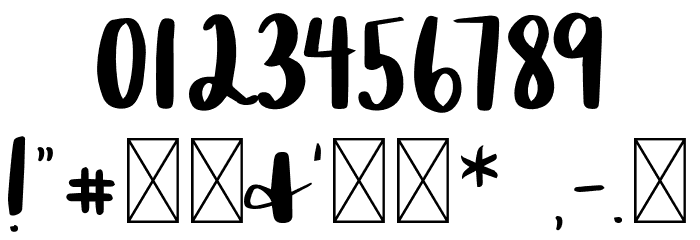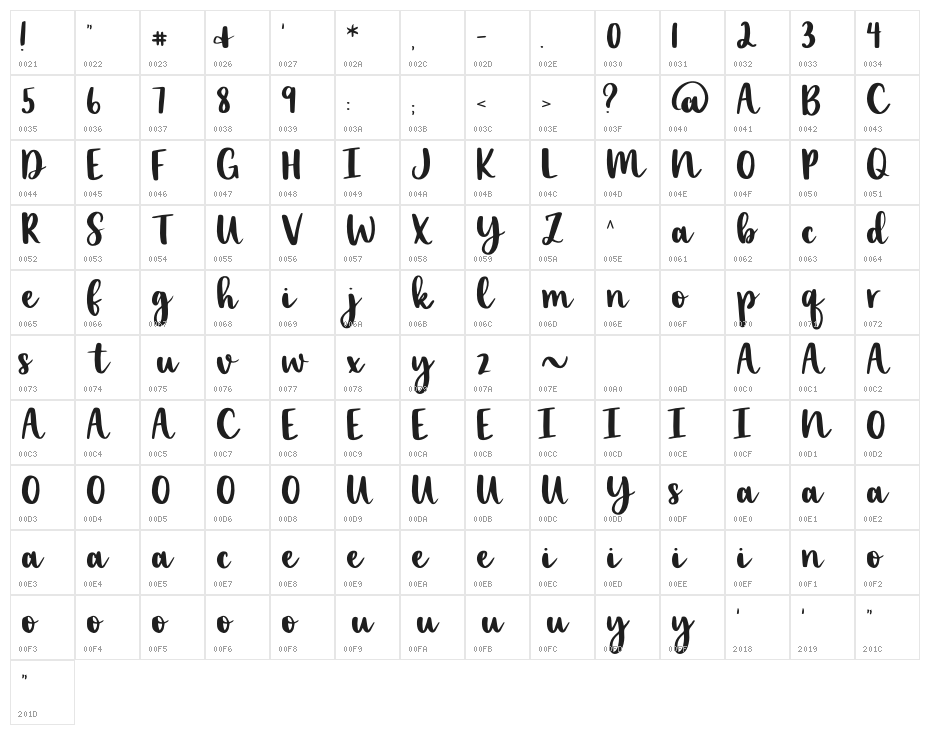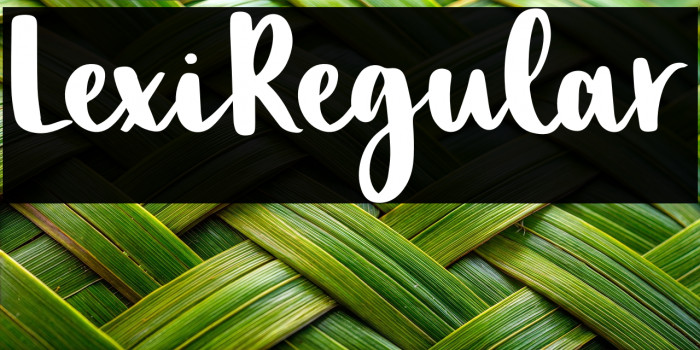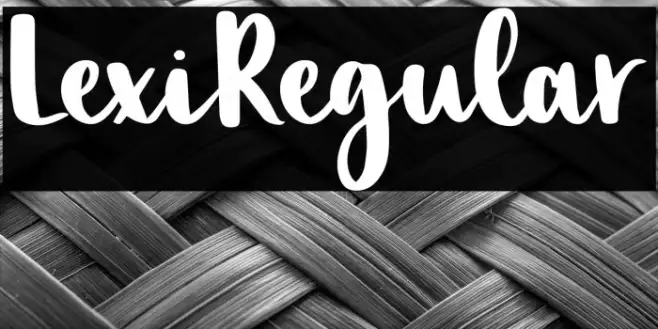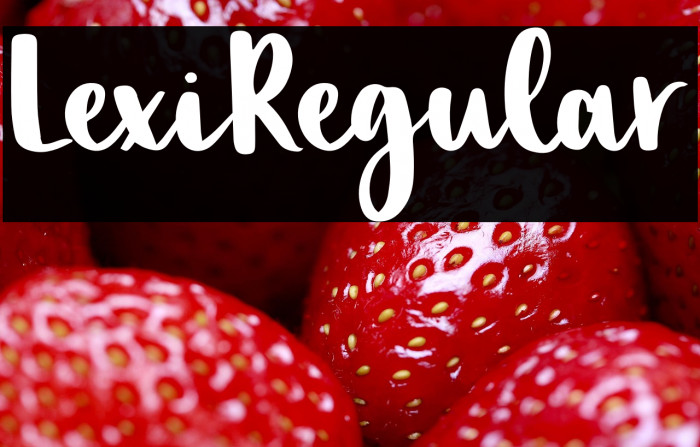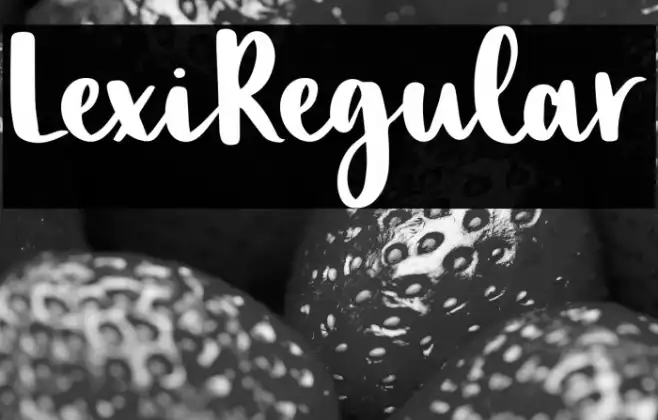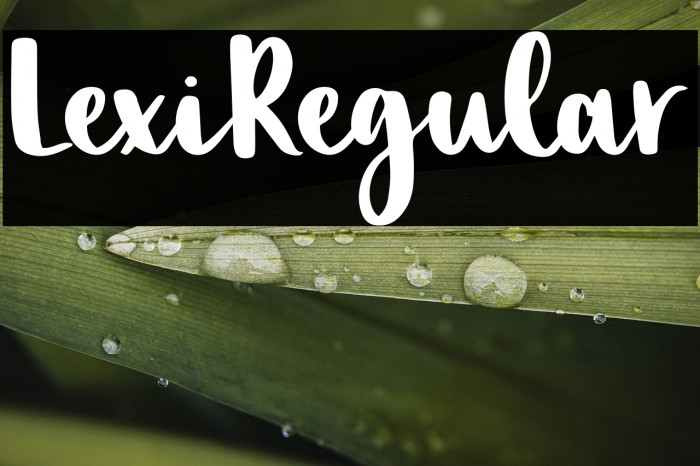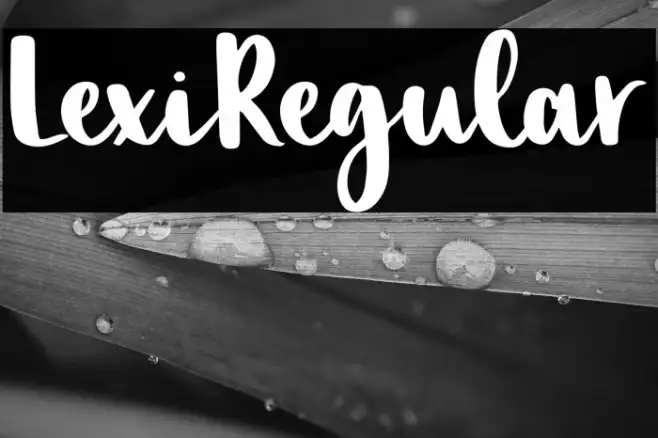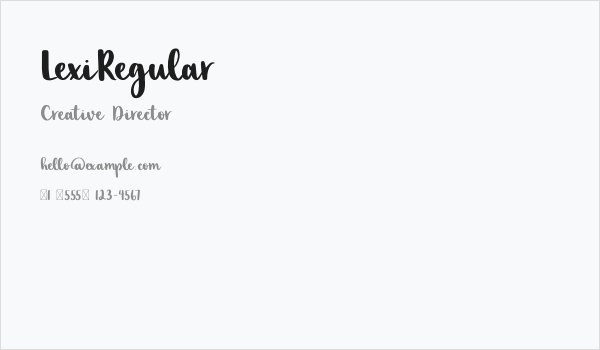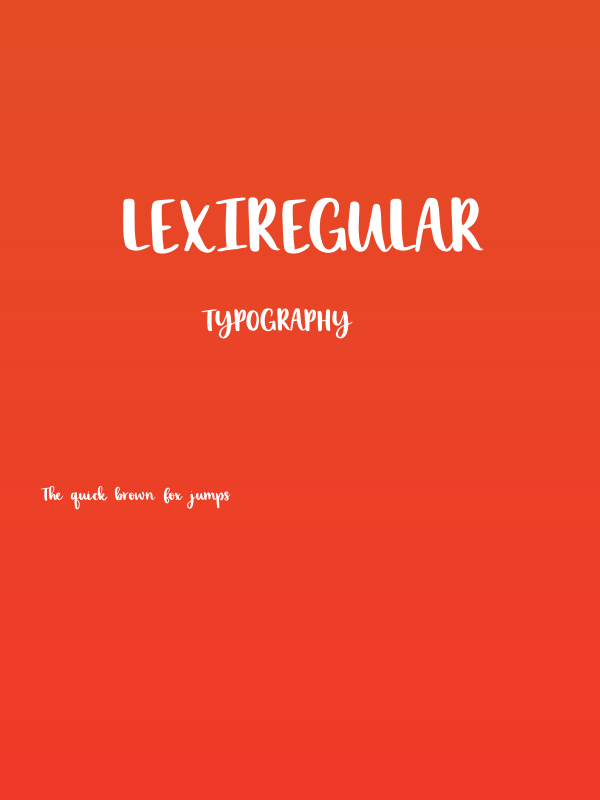
LexiRegular Font
LexiRegular Description
This font features a bold and expressive handwritten style with a playful and artistic flair. The letters are characterized by their smooth curves and flowing lines, giving it a dynamic and lively appearance. The uppercase letters are bold and slightly condensed, while the lowercase letters maintain a consistent flow with occasional loops and swirls. The numbers are clear and legible, matching the overall style of the alphabet. Special characters are included, adding versatility to the font. The overall design is modern and suitable for creative projects that require a personal touch.